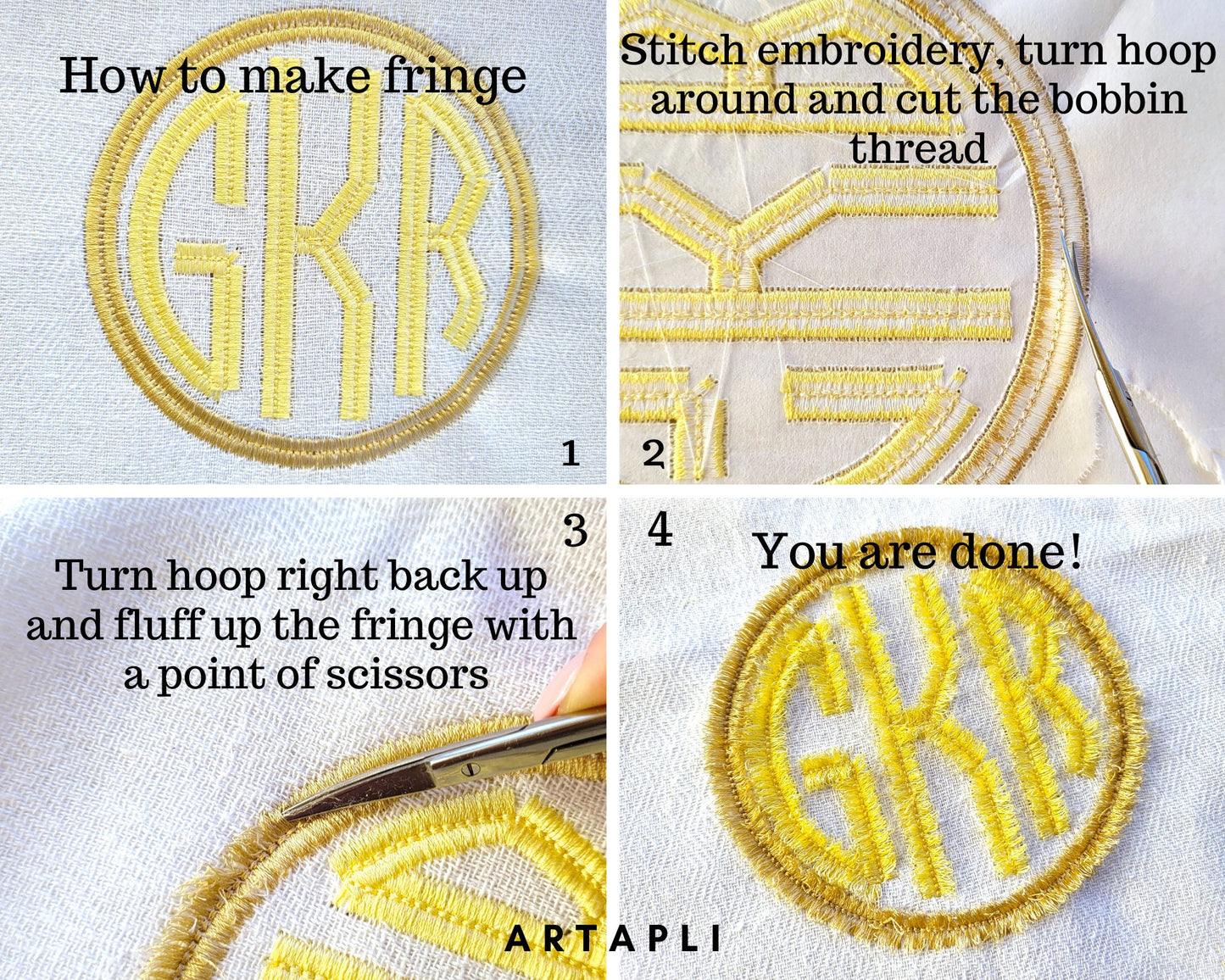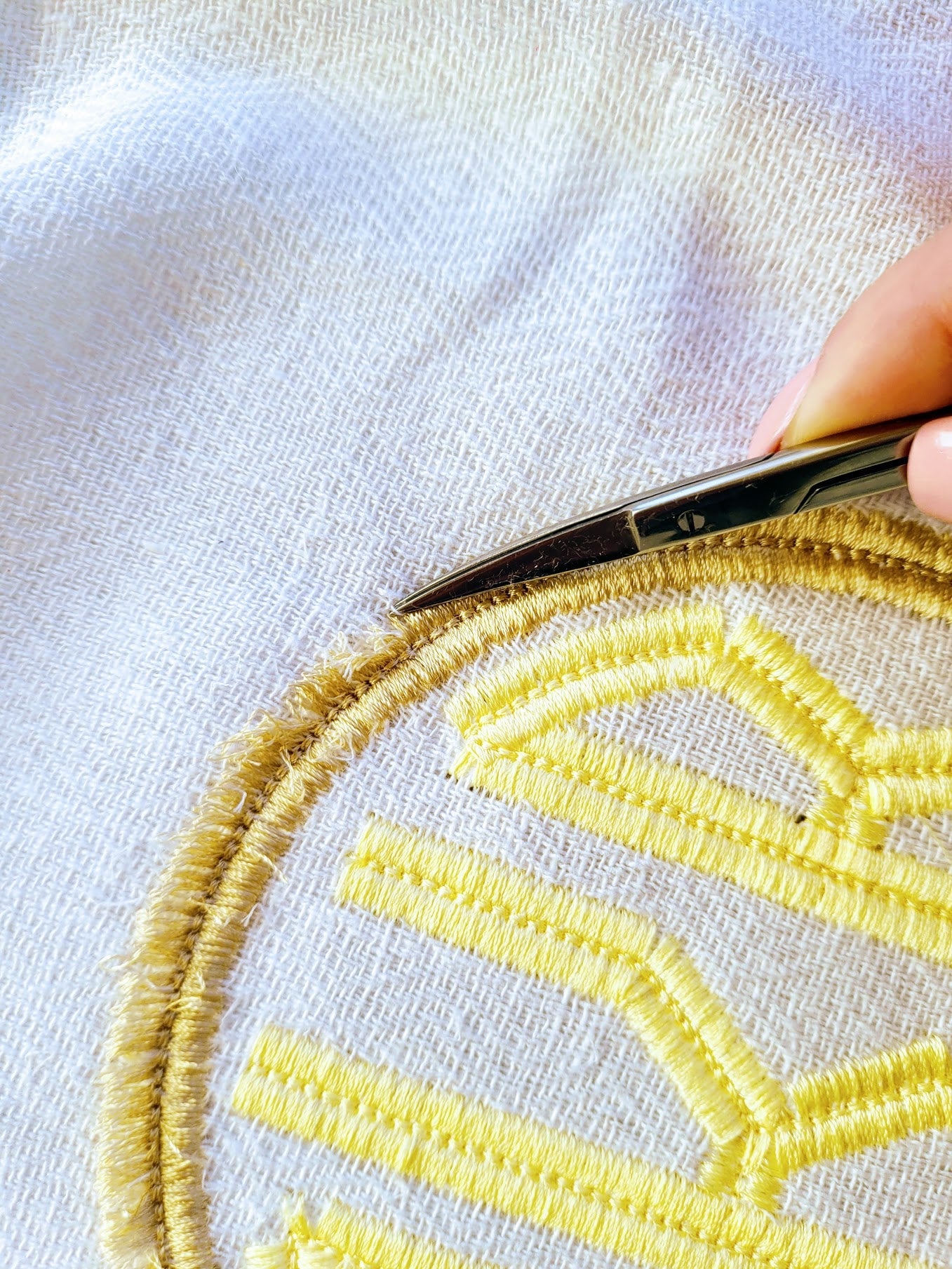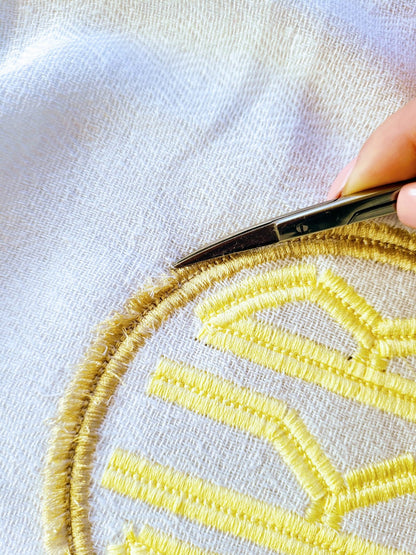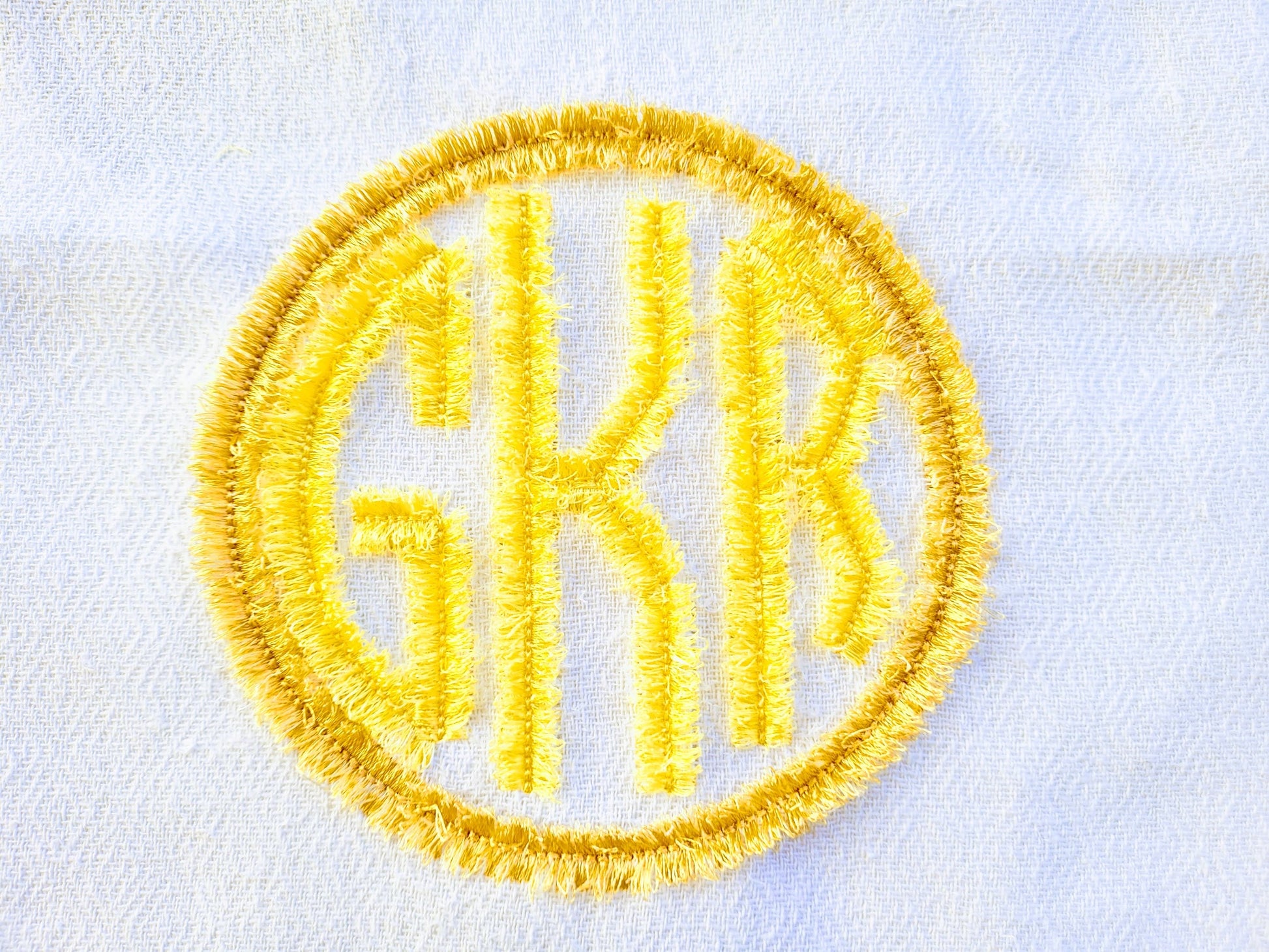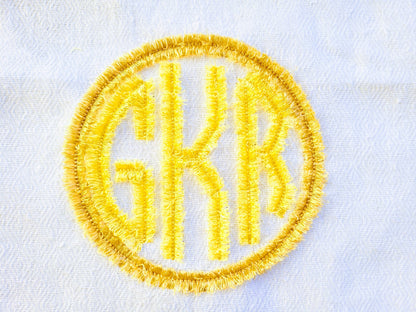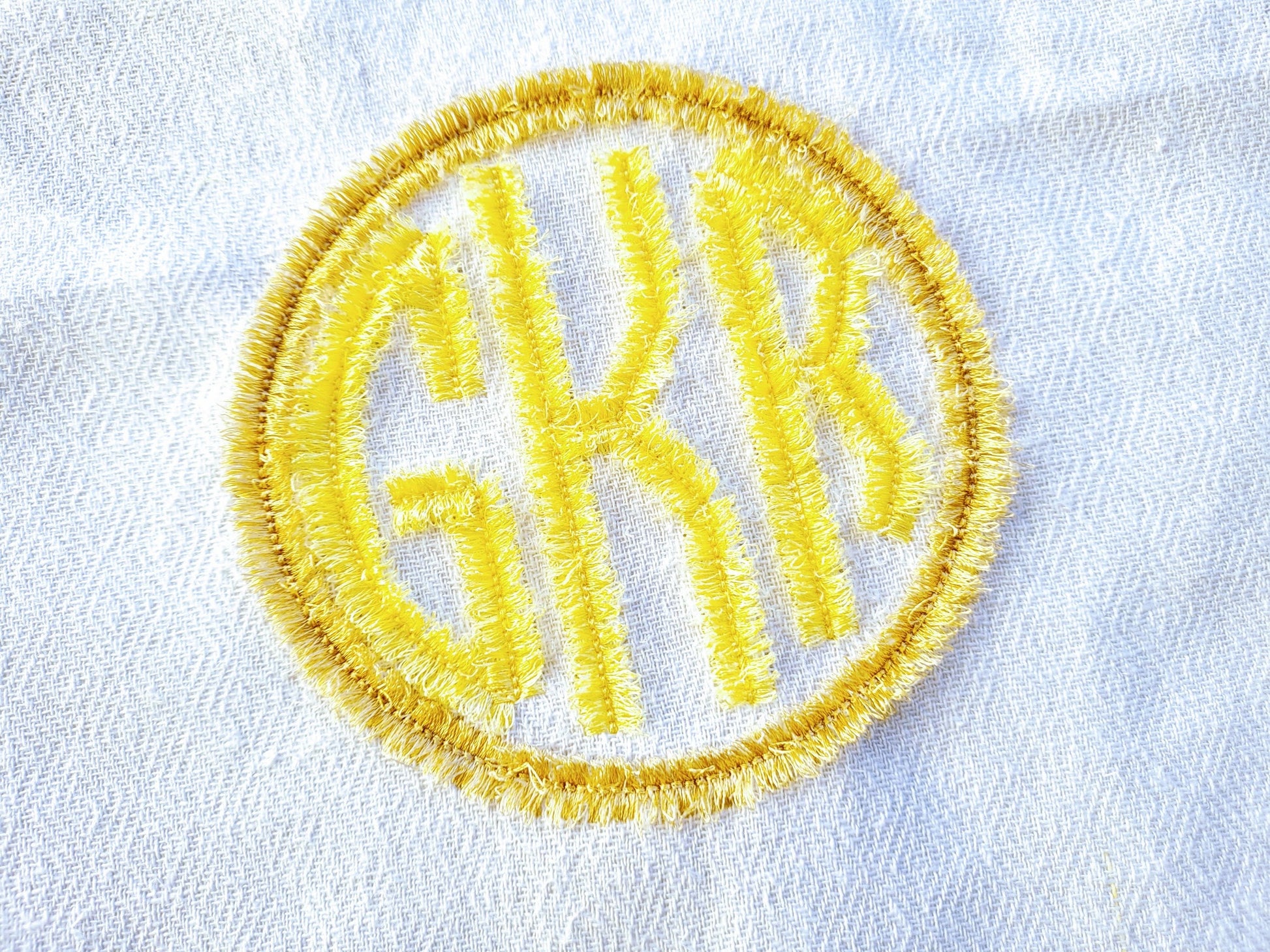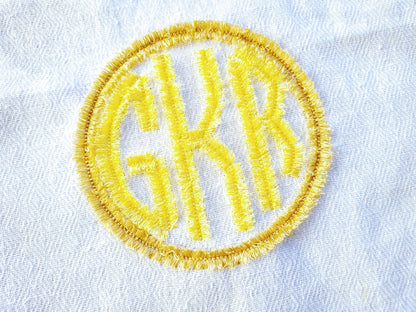
Or click to open the linkA fluffy fringed three-letter circle monogram, made in the hoop. Fun for kids' pillows, bags, blankets and gifts.
All 26 letters come as left, center and right pieces that join into a circle monogram, in four sizes: 3, 4, 5 and 6 inches, with matching fringed circles. Stitched like applique; the long satin stitches are cut from the back and fluffed into fringe. Safe to wash.
Absolutely safe for washing! Simply stitch the design, then turn your hoop over to view the back. Cut the bobbin threads behind the satin stitches, and fluff up the fringe.